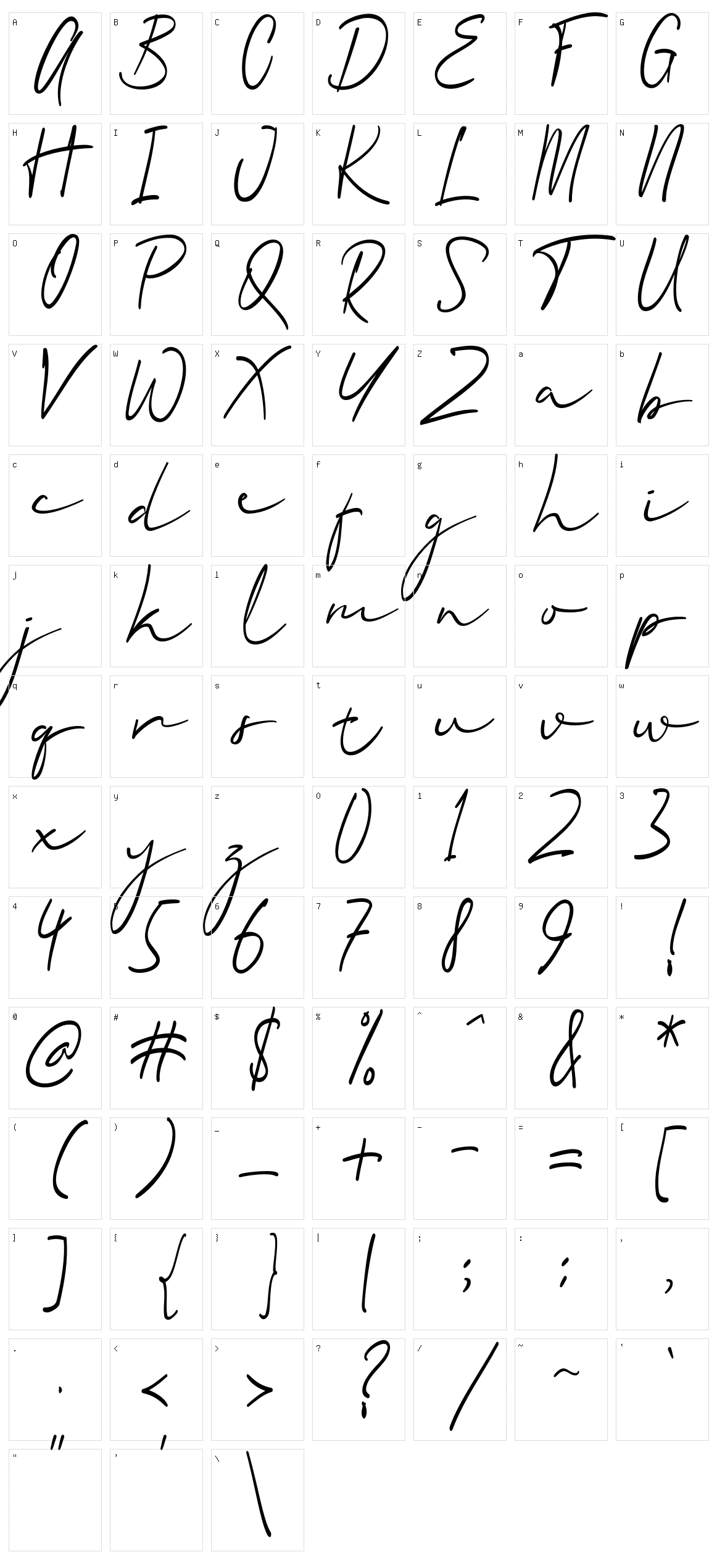
I proudly present this "Quartila" script font Demo Version. Quartila created with stylist and handwritten characters. This great font was PUA encoded . Quartila is a natural handwritten style that comes with Extended Latin Characters. Quartila works perfectly for logos, display, product branding, wedding invitation card, stationary, packaging, clothing, flyer, apparel, magazines, brochures, lable, posters, badges, etc.